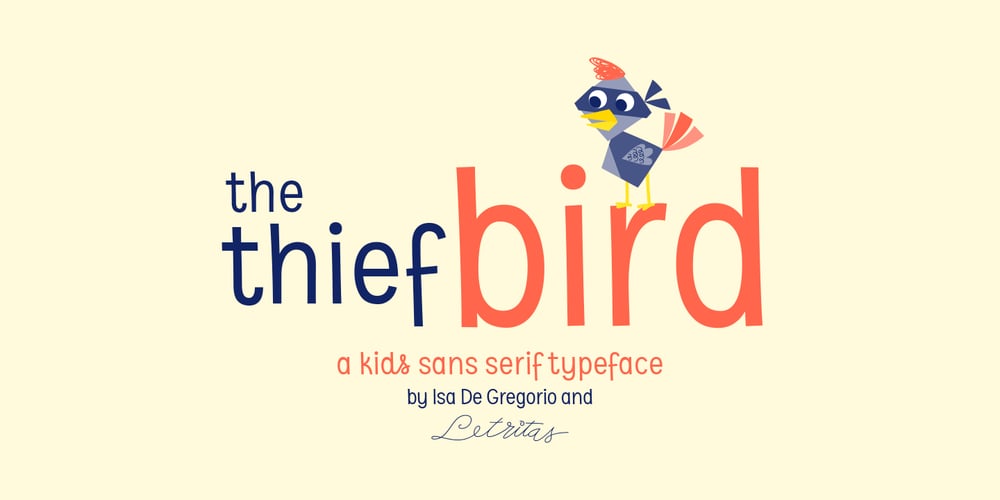
The Thief Bird Font Family was designed by Isabel De Gregorio and published by Lemur. The Thief Bird contains 1 styles and family package options. The Thief Bird is an informal grotesque font. Although informal and grotesque may seem to be two quite different ideas, we have to dig into the origin of this typeface in order to understand the matter. The concept behind The Thief Bird was inspired by the adaptation that the vintage sign painters made when they took the grotesque style characters they saw in newspapers and magazines and reproduced them using a brush, aiming to make the prices of the products displayed on wooden boards stand out, as opposed to highlighting large headlines (such as the idea behind fonts like Franklin Gothic). The Thief Bird takes the language from sign painters and turns it into a font –this time around not aiming to set prices but to bring children stories to life. Thus, some legibility features from grotesque fonts were mixed with the brush calligraphy to add grace and zest to a font intended for children. The Thief Bird is a playful display font, with cheerful ligatures and alternate characters. It is really attractive for setting short paragraphs that tell stories for little people. The Thief Bird has one single weight and it’s ideal to be used in storybooks, candy packaging, films, toys, logos, labels, etc. The font has an extended set of 643 characters supporting 219 Latin languages. It has a complete set of small caps, sensitive cases, more than 30 pairs of ligatures, alternate characters and much more. This cool, informal and laid back typeface will be the perfect match for illustrations of fairy tales, comics for children and any product or publishing for the little ones. The Thief Bird supports this languages: Abenaki, Afaan Oromo, Afar, Afrikaans, Albanian, Alsatian, Amis, Anuta, Aragonese, Aranese, Aromanian, Arrernte, Arvanitic (Latin), Asturian, Atayal, Aymara, Bashkir (Latin), Basque, Bemba, Bikol, Bislama, Bosnian, Breton, Cape Verdean Creole, Catalan, Cebuano, Chamorro, Chavacano, Chichewa, Chickasaw, Cimbrian, Cofán, Corsican Creek,Crimean Tatar (Latin),Croatian, Czech, Dawan, Delaware, Dholuo, Drehu, Dutch, English, Estonian, Faroese, Fijian Filipino, Finnish, Folkspraak, French, Frisian, Friulian, Gagauz (Latin), Galician, Ganda, Genoese, German, Gikuyu, Gooniyandi, Greenlandic (Kalaallisut)Guadeloupean, Creole, Gwich’in, Haitian, Creole, Hän, Hawaiian, Hiligaynon, Hopi, Hotcąk (Latin), Hungarian, Icelandic, Ido, IgboI, locano, Indonesian, Interglossa, Interlingua, Irish, Istro-Romanian, Italian, Jamaican, Javanese (Latin), Jèrriais, Kala Lagaw Ya, Kapampangan (Latin), Kaqchikel, Karakalpak (Latin), Karelian (Latin), Kashubian, Kikongo, Kinyarwanda, Kiribati, Kirundi, Klingon, Ladin, Latin, Latino sine Flexione, Latvian, Lithuanian, Lojban, Lombard, Low Saxon, Luxembourgish, Maasai, Makhuwa, Malay, Maltese, Manx, Māori, Marquesan, Megleno-Romanian, Meriam Mir, Mirandese, Mohawk, Moldovan, Montagnais, Montenegrin, Murrinh-Patha, Nagamese Creole, Ndebele, Neapolitan, Ngiyambaa, Niuean, Noongar, Norwegian, Novial, Occidental, Occitan, Old Icelandic, Old Norse, Oshiwambo, Ossetian (Latin), Palauan, Papiamento, Piedmontese, Polish, Portuguese, Potawatomi, Q’eqchi’, Quechua, Rarotongan, Romanian, Romansh, Rotokas, Sami (Inari Sami), Sami (Lule Sami), Sami (Northern Sami), Sami (Southern Sami), Samoan, Sango, Saramaccan, Sardinian, Scottish Gaelic, Serbian (Latin), Seri, Seychellois Creole, Shawnee, Shona, Sicilian, Silesian, Slovak, Slovenian, Slovio (Latin), Somali, Sorbian (Lower Sorbian), Sorbian (Upper Sorbian), Sotho (Northern), Sotho (Southern), Spanish, Sranan, Sundanese (Latin), Swahili, Swazi, Swedish, Tagalog, Tahitian, Tetum, Tok Pisin, Tokelauan, Tongan, Tshiluba, Tsonga, Tswana, Tumbuka, Turkish, Turkmen (Latin), Tuvaluan, Tzotzil, Uzbek (Latin), Venetian, Vepsian, Volapük, Võro, Wallisian, Walloon, Waray-Waray, Warlpiri, Wayuu, Welsh, Wik-Mungkan, Wiradjuri, Wolof, Xavante, Xhosa, Yapese, Yindjibarndi, Zapotec, Zulu, Zuni.